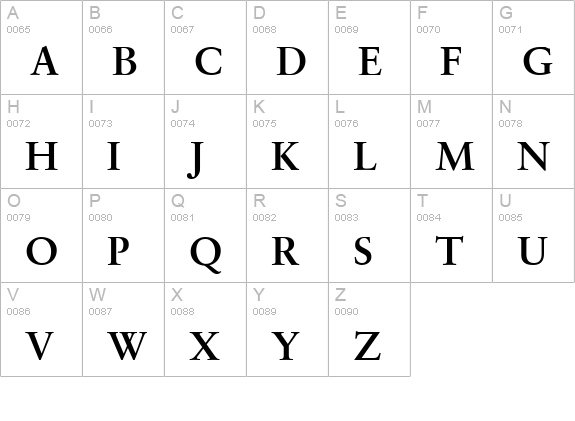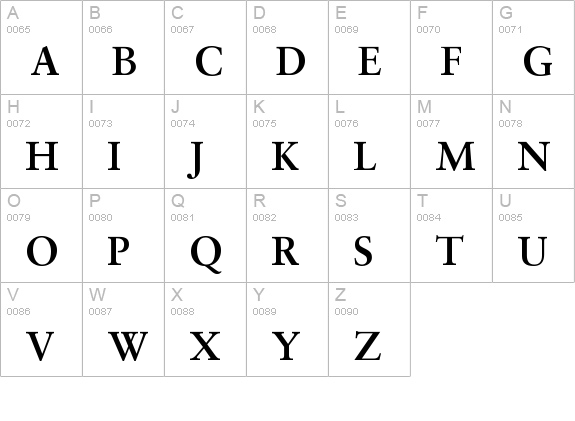
Garamond Retrospective SSi Bold Font Details
Garamond Retrospective SSi Bold is a strong, high-contrast variant in the Garamond typeface family \xE2\x80\x94 well suited to headlines, attention-grabbing titles, and strong calls-to-action.
Introducing Garamond Retrospective SSi Bold, a timeless font that effortlessly captures the essence of classical typography with a modern twist. This bold variant of the Garamond Retrospective SSi family exudes confidence and sophistication, making it the perfect choice for any design project that demands attention and elegance. Crafted with utmost precision and attention to detail, Garamond Retrospective SSi Bold showcases the renowned Garamond typeface in a new light. Its bold strokes and well-defined curves create a sense of dynamism, making every letter stand out on various mediums, be it print or digital. This font's versatility is a testament to its exceptional design, allowing it to seamlessly adapt to a wide range of applications. Whether you're designing a logo for a luxury brand, a book cover for a timeless classic, or even a wedding invitation that exudes elegance, Garamond Retrospective SSi Bold will elevate your design to new heights. One of the most enticing aspects of Garamond Retrospective SSi Bold is its accessibility. It is freely available for download at FontsMarket.com, a trusted and reliable source for high-quality fonts. By offering this font for free, the creators have made it possible for designers, creatives, and enthusiasts alike to access and incorporate this magnificent typeface into their projects without any barriers. So, if you're looking to add a touch of sophistication and allure to your designs, Garamond Retrospective SSi Bold is your go-to font. Its timeless appeal, coupled with its free availability at FontsMarket.com, ensures that you can create captivating designs without compromising on quality or budget. Elevate your design game today with Garamond Retrospective SSi Bold, and let its bold elegance leave a lasting impression on your audience.